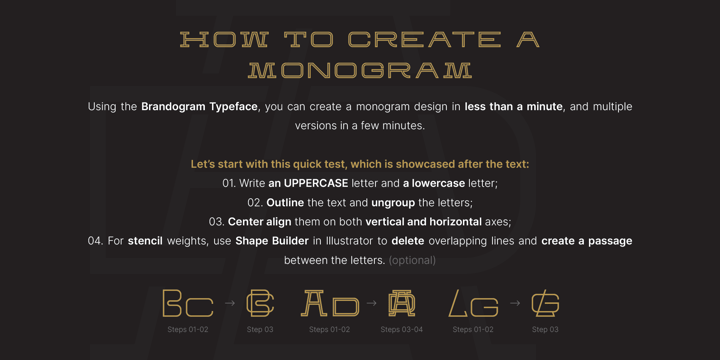
Brandogram Monogram Typeface
The Brandogram Monogram Typeface Font Family was designed by Bogdan Cașotă and published by Design A Lot. Brandogram Monogram Typeface contains 7 styles and family package options. More about this family
After months of testing and development, we have managed to put together the Brandogram Typeface, an ultimate tool for monogram design. With the help of this typeface you can easily create a monogram in less than a minute.
Thanks to the way we have created and optimised Brandogram, the uppercase letters effortlessly fit together with the small caps that are activated by the lowercase letters.
Using the Brandogram typeface you can create unlimited monogram combos with 2, 3 or even 4 letters in some cases. And these are all possible thanks to features like:
• Multiple letter widths, from condensed to wide;
• Both sans serif and slab serif letter designs;
• Up to 24 different designs per letter;
• All letter variations are available as alternates so you can easily choose your favorite;
• Accents are available for each letter alternate;
• Uppercase and lowercase activated letters are constructed to perfectly center and middle align;
• There are 5 solid ready-made weights;
• There are another 2 stencil weights that can bring a new touch to your designs.
The 7 weights of Brandogram Monogram Typeface:
• Thin
• Light
• Regular
• Medium
• Bold
• Stencil One
• Stencil Two
Each of these weights are thought to express different levels of heaviness. The thicker the weight of the font gets, the less white space will be left between the letters when they are combined, therefore your design gets heavier. The role of the stencil weights is to create depth in the monogram designs. With those you can easily delete the extra overlapping shapes of the letters and create passages between the letters and give an interlocking impression.
This typeface combined with your creativity can have no limits!